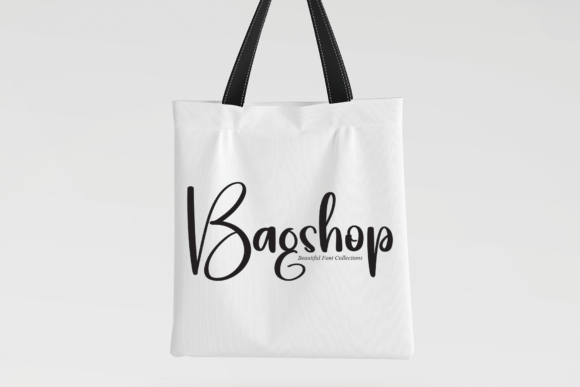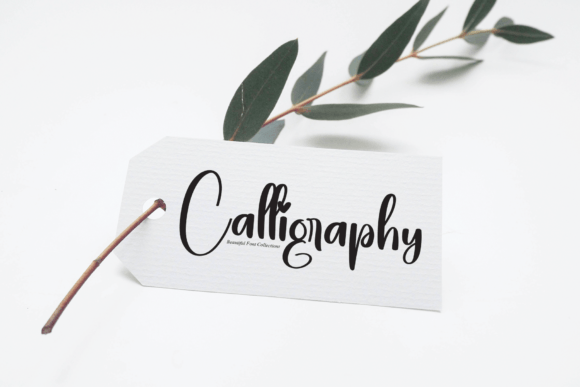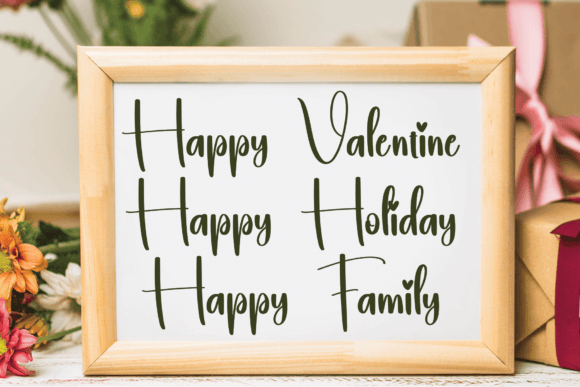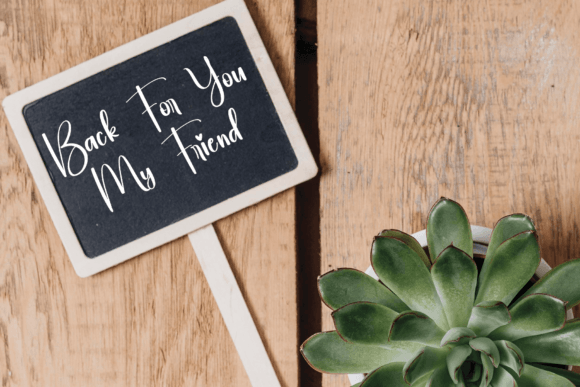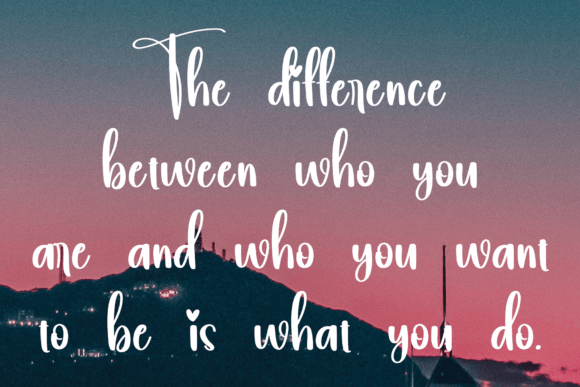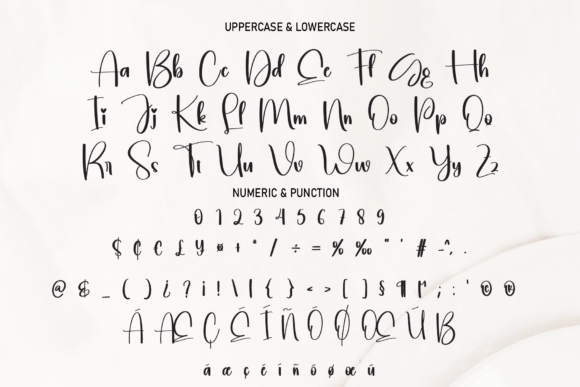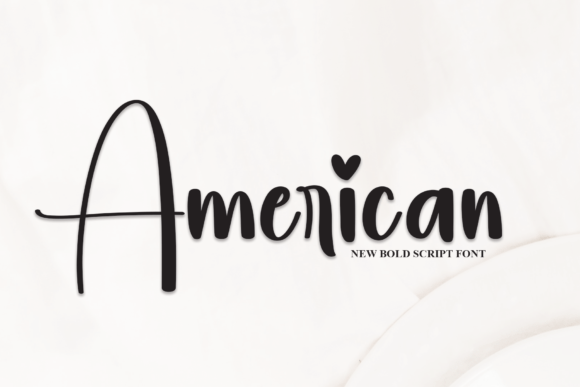
The Charm of American Font: A Designer’s Delight
I’ll never forget the time I was working on a wedding invitation project, and my client asked for a font that was “romantic, yet playful.” I scoured the internet, tried out countless fonts, but nothing seemed quite right. That was until I stumbled upon American Font. This lovely handwritten script font has been a game-changer for me, and I’m excited to share its charm with you! 😊
So, what makes American Font so special? Let’s dive into the good stuff! ✨
- ✅ Sweet and Gentle: American Font has a soft, whimsical feel that’s perfect for projects that need a touch of romance.
- ✅ Highly Versatile: This font looks stunning on a variety of design materials, from wedding invites to branding, and even social media graphics.
- ✅ Easy to Read: Despite its script nature, American Font is surprisingly legible, making it suitable for both headings and body text.
Now, no font is perfect, and American Font has a few minor quirks to consider: 🤔
- ⚠️ Limited Character Set: While American Font has a range of characters, it may not have every special character or glyph you need.
- ⚠️ Not Suitable for Body Text: While it’s legible, American Font is best used for headings or titles; it may not be the best choice for long blocks of text.
The Story Behind American Font
American Font was designed with love and care by a talented type designer. The story goes that the designer wanted to create a font that captured the essence of American handwriting, with all its quirks and charm. And so, American Font was born – a beautiful, sweet script font that’s perfect for adding a touch of romance to your designs.
And there you have it – a comprehensive guide to American Font, a beautiful and sweet handwritten script font that’s sure to delight your design projects! 🎉